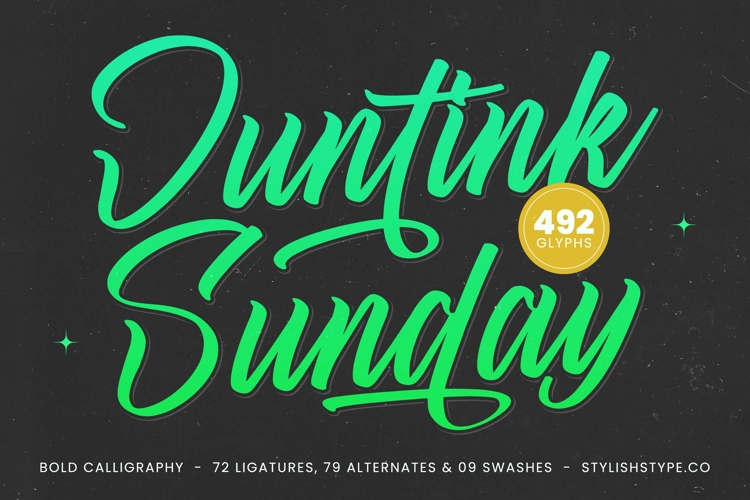
Juntink Sunday - Bold Calligraphy Font
Embark on a design journey with Font Juntink Sunday - Bold Calligraphy Font Script, a truly captivating and dynamic script typeface. This font masterfully blends the expressive fluidity of traditional bold calligraphy with a contemporary, bold presence, instantly grabbing attention. Its organic, hand-drawn feel, combined with confident strokes and elegant swashes, exudes a vibrant, energetic personality, making it a standout choice for any creative endeavor.
Unleash unparalleled creative potential with the rich feature set of Font Juntink Sunday - Bold Calligraphy Font Script. Boasting an impressive 492 glyphs, including 72 ligatures, 79 alternates, and 09 swashes, this font offers extensive customization for truly unique typography. With its extensive multilingual support, Font Juntink Sunday - Bold Calligraphy Font Script adapts seamlessly across global markets, making it incredibly versatile for international projects and ensuring your message resonates universally.
Perfect for designs demanding both elegance and impact, Font Juntink Sunday - Bold Calligraphy Font Script is ideal for a myriad of applications. This typeface is precisely crafted for luxury branding, high-end product packaging, sophisticated invitations, memorable greeting cards, and editorial headlines. It excels in creating distinctive logos, engaging social media graphics, and eye-catching apparel designs, consistently elevating visual communication.
Invest in a font that truly transforms your creative vision. Font Juntink Sunday - Bold Calligraphy Font Script offers designers a powerful tool to inject authenticity and a personalized touch into their projects. Its inherent artistic quality and robust stylistic options guarantee designs that are not just seen, but remembered, ensuring your work always conveys bespoke craftsmanship and professional distinction.